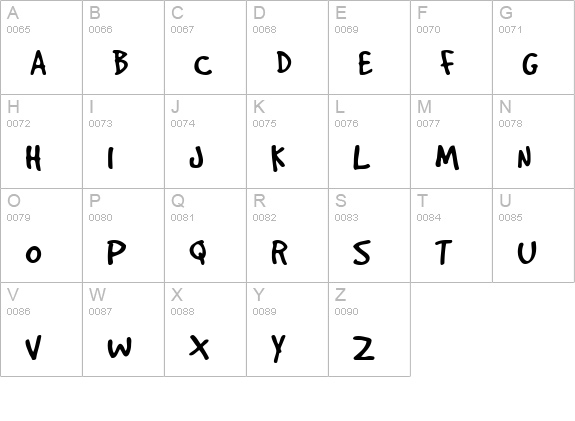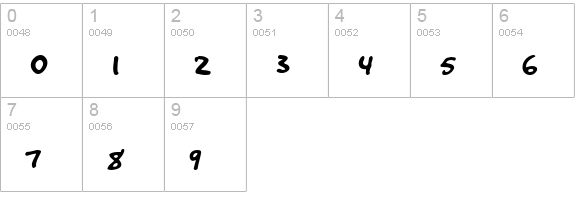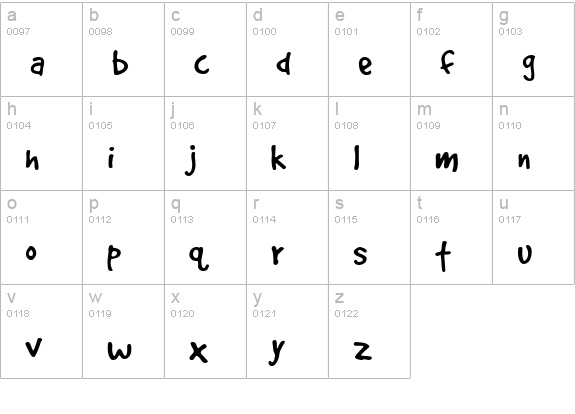
GoodDog Plain Font Details
GoodDog Plain font is a charming and versatile typeface that exudes a friendly and approachable vibe. With its clean and simple design, this font is perfect for a wide range of projects, from branding to editorial design. The GoodDog Plain font is free to download at FontsMarket.com, making it easily accessible for designers and creatives looking to add a touch of personality to their work. Its smooth curves and classic letterforms make it a great choice for creating eye-catching headlines, logos, and more. Whether you're working on a print or digital project, GoodDog Plain font is sure to make a lasting impression. Download it today and elevate your design game with this delightful typeface.